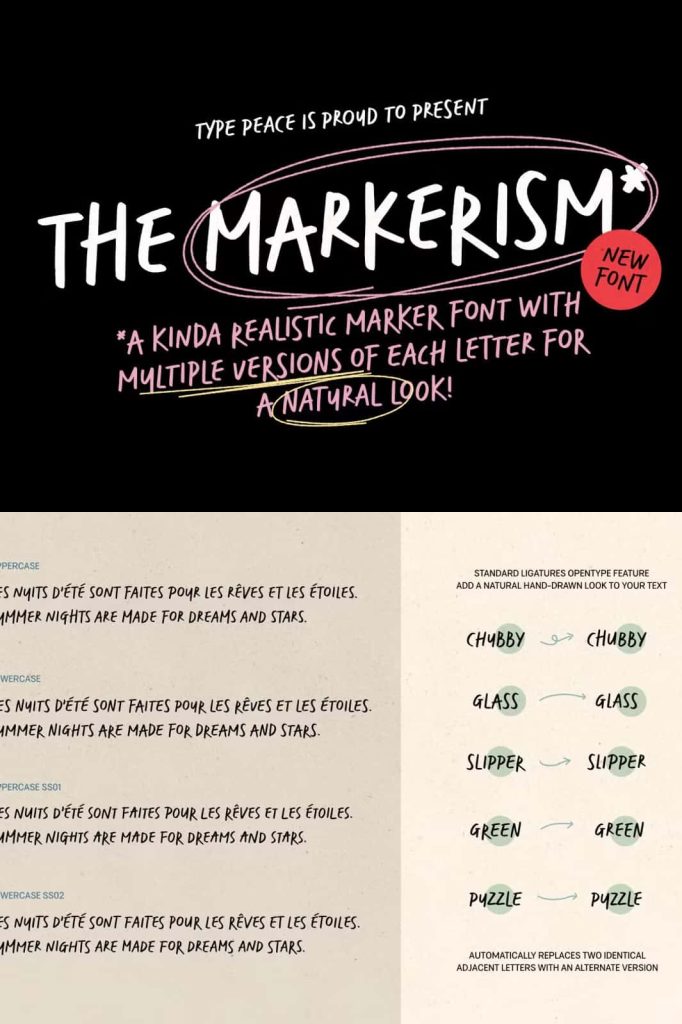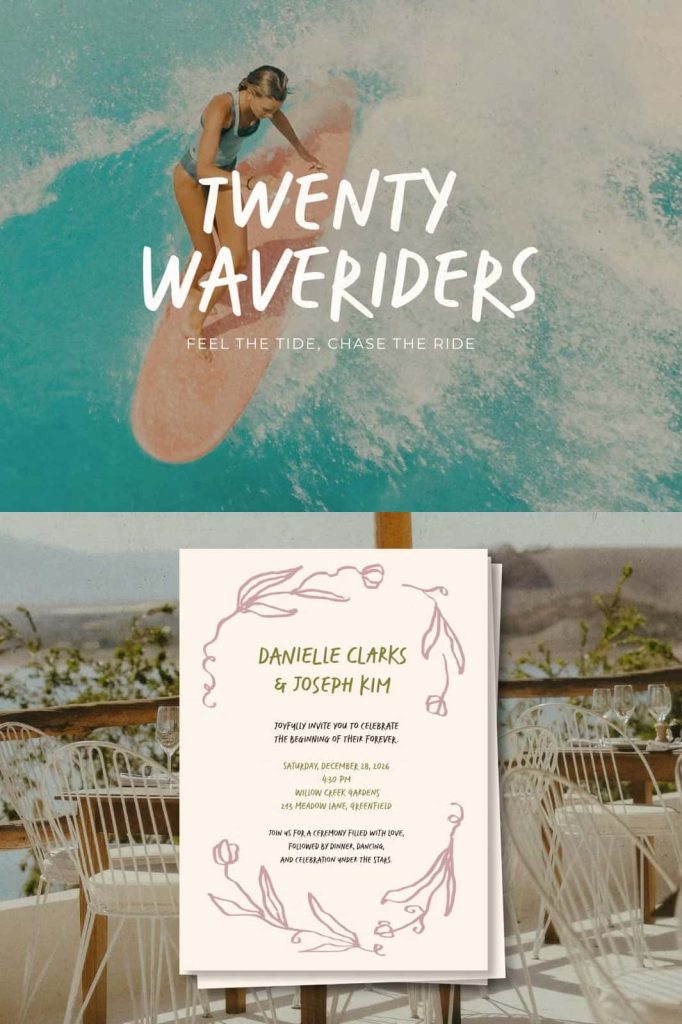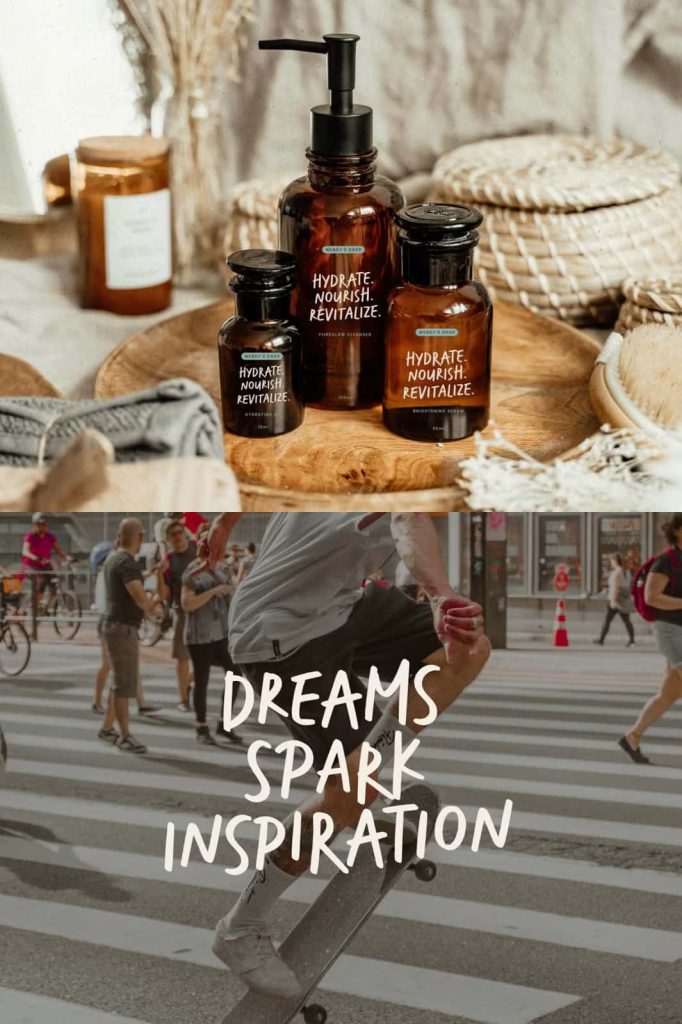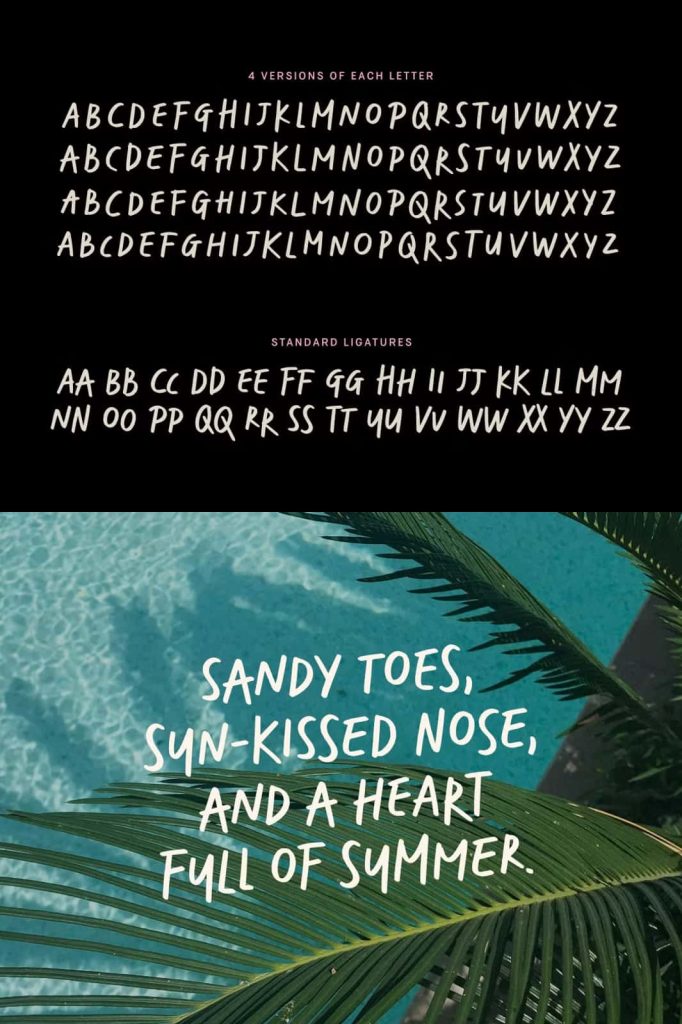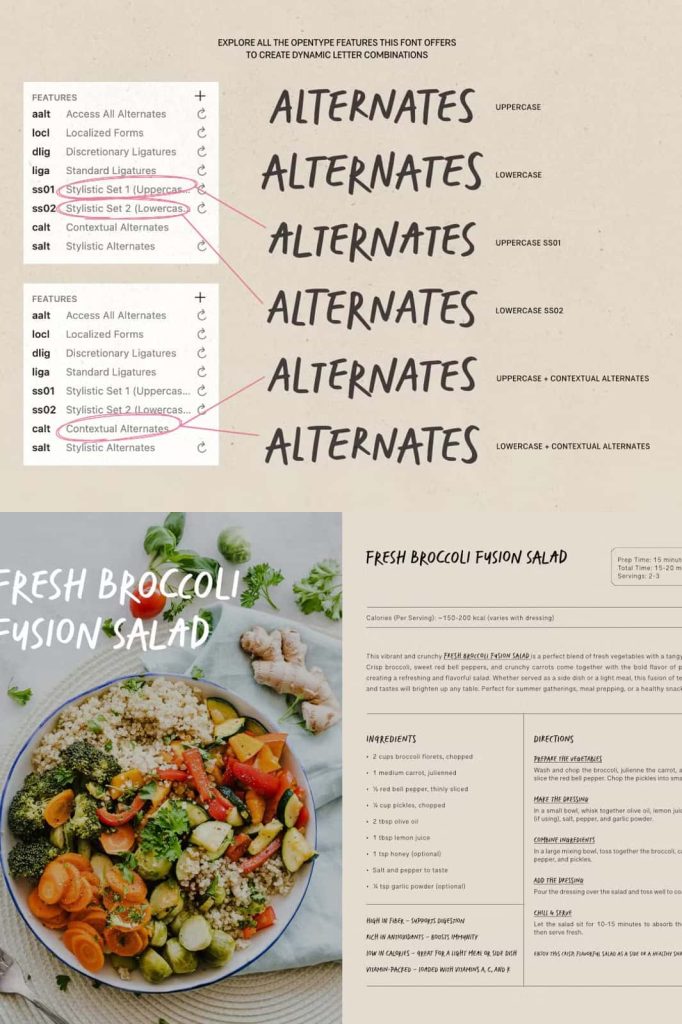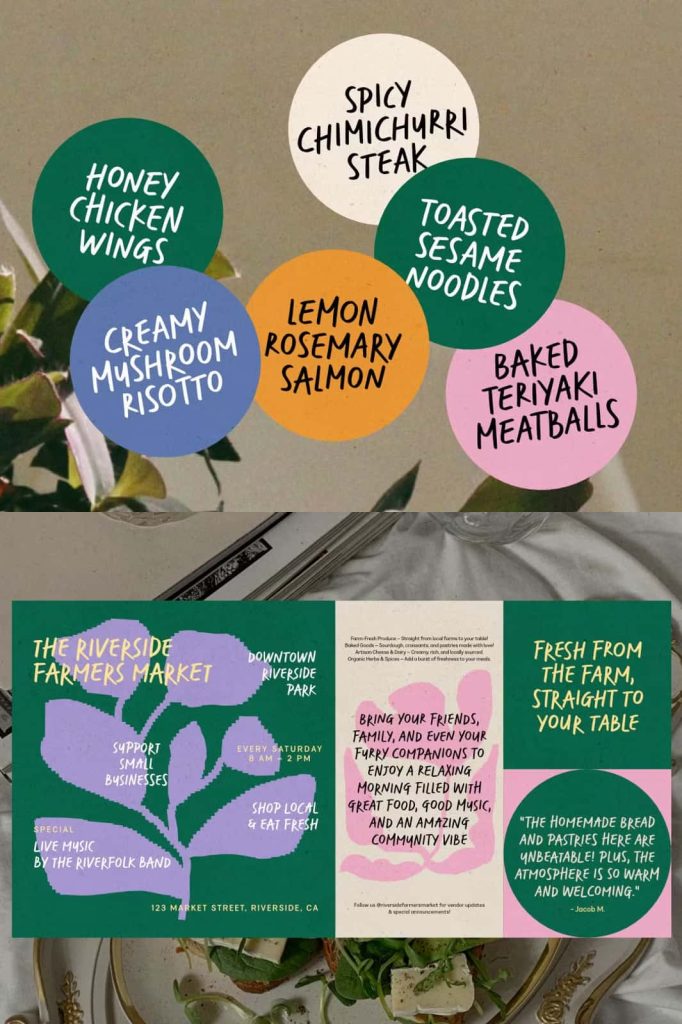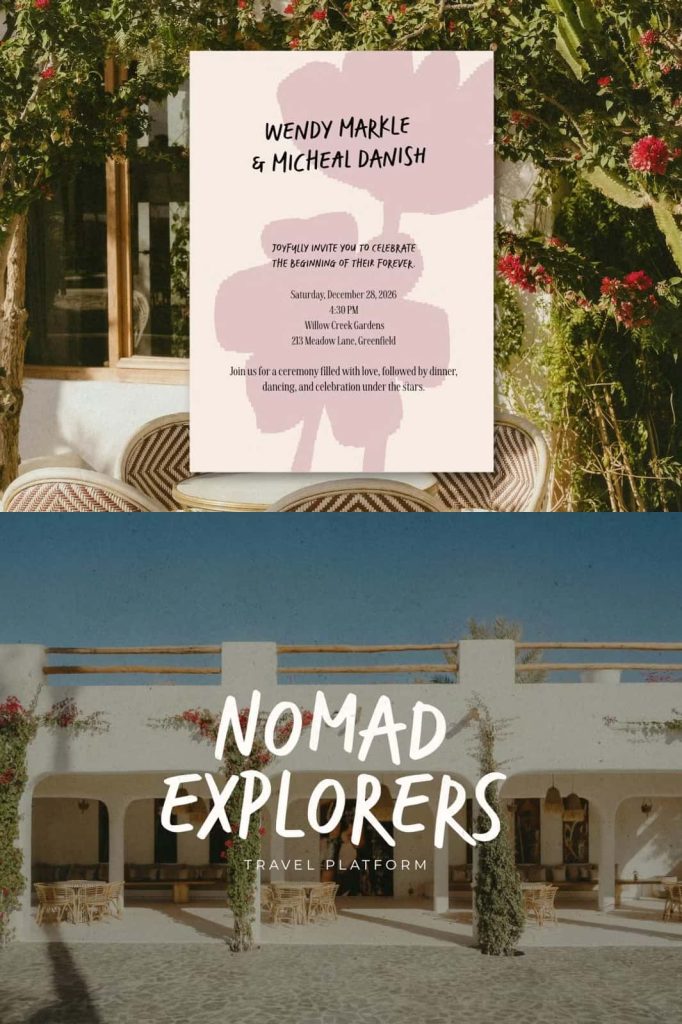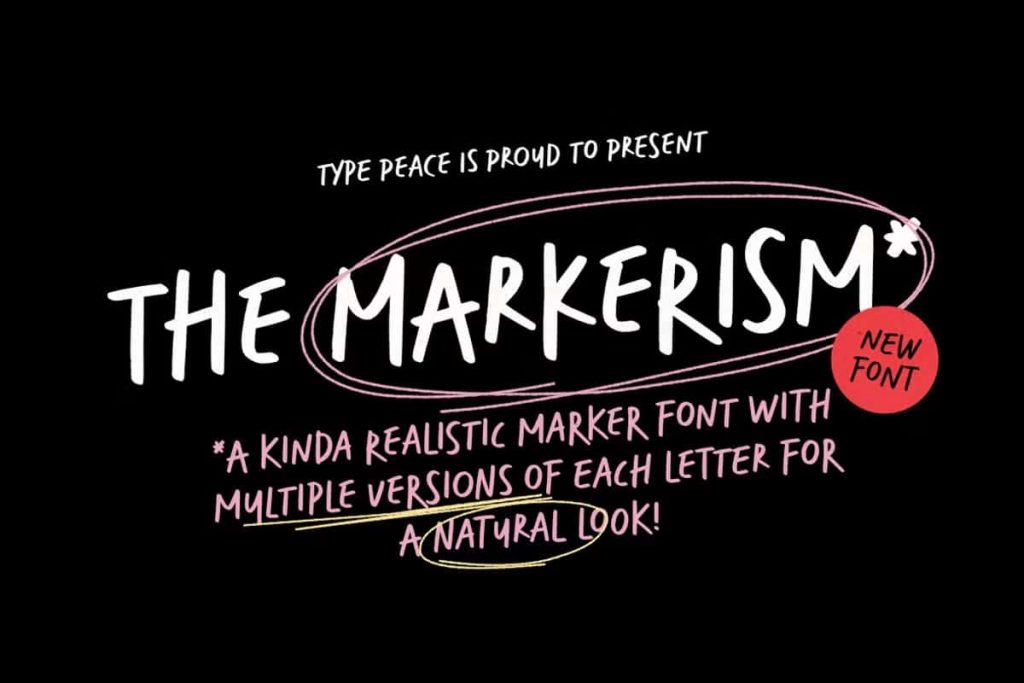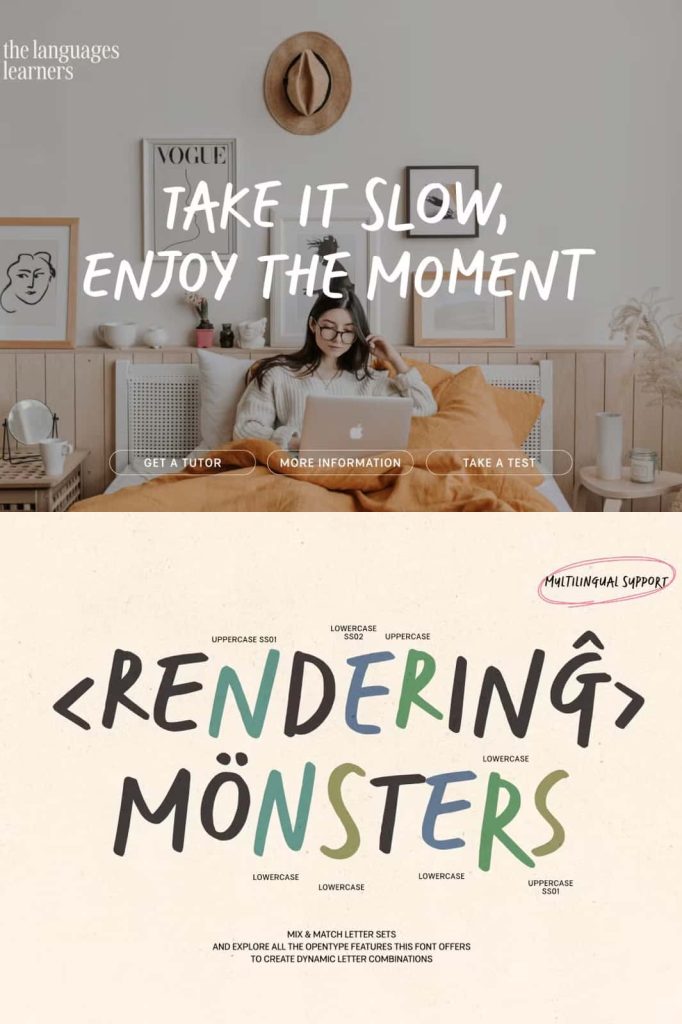
MARKERISM Marker Font – Bold Hand-Drawn Typography for Creative and Expressive Designs
MARKERISM Marker Font is a bold, energetic, and highly expressive typeface created to capture the authentic feel of natural handwritten lettering. Inspired by the freedom and spontaneity of marker pen strokes, this font brings personality, movement, and artistic character to every design. Whether you are creating eye-catching branding, impactful posters, engaging social media graphics, or creative packaging, MARKERISM helps transform ordinary typography into dynamic visual communication.
Designed with versatility in mind, MARKERISM includes four variations of each letter, allowing text to appear more natural and less repetitive. Combined with advanced OpenType features such as ligatures and contextual alternates, the font automatically generates realistic handwritten effects that closely mimic genuine marker lettering. The result is a highly authentic typeface that feels organic, creative, and full of life.
Authentic Hand-Drawn Style with Natural Character
One of the most distinctive features of MARKERISM Marker Font is its ability to recreate the look and feel of hand-drawn typography. Traditional digital fonts often suffer from repetitive letterforms that can make text appear mechanical. MARKERISM solves this challenge by providing multiple variations of every character, allowing each word and sentence to appear naturally handwritten.
This thoughtful design approach creates a realistic flow that enhances the overall visual experience. Every stroke feels spontaneous and energetic, making the font ideal for projects that require authenticity, creativity, and emotional connection.
Four Letter Variations for Dynamic Typography
MARKERISM includes four unique versions of each letter, dramatically increasing design flexibility. As characters repeat throughout a word or sentence, the font intelligently alternates between different variations to create a more organic and handcrafted appearance.
This feature helps eliminate the uniformity often found in standard digital fonts, allowing designers to achieve typography that feels fresh and genuinely hand-rendered. The variation system adds visual interest while preserving readability, making MARKERISM suitable for both short headlines and longer creative text compositions.
Advanced OpenType Features for Professional Results
MARKERISM takes advantage of modern OpenType technology to enhance the quality and realism of every design. The inclusion of ligatures and contextual alternates allows characters to interact naturally with one another, creating smoother connections and more fluid typography.
These intelligent features work automatically in compatible design software, helping designers achieve professional-quality results with minimal effort. The font continuously adapts to the surrounding letterforms, creating text that looks handcrafted rather than digitally generated.
Popular Applications for MARKERISM Marker Font
- Logo Design and Branding
- Creative Posters and Flyers
- Product Packaging
- Social Media Graphics
- YouTube Thumbnails
- Advertising Campaigns
- Merchandise Design
- Book Covers and Editorial Projects
- Greeting Cards and Invitations
- Website Headers and Landing Pages
- Art Prints and Creative Artwork
- Marketing Materials
Create Bold and Memorable Branding
Strong branding requires typography that captures attention and communicates personality. MARKERISM Marker Font helps brands establish a distinctive voice through its expressive and handcrafted style. The font instantly adds character to logos, packaging, promotional materials, and advertising campaigns, making businesses appear more approachable, creative, and memorable.
Creative agencies, lifestyle brands, artists, content creators, and small businesses can use MARKERISM to build visual identities that stand out in crowded markets. Its bold strokes and authentic handwritten appearance create a sense of originality that resonates with modern audiences.
Perfect for Posters and Promotional Designs
MARKERISM excels in large-format typography where visual impact is essential. Its bold marker-inspired design naturally attracts attention, making it an excellent choice for posters, event promotions, marketing campaigns, and advertising materials.
Designers can use the font to create powerful headlines and attention-grabbing messages that remain highly readable while maintaining a creative and artistic feel. The expressive letterforms inject energy into every composition, helping promotional materials communicate with greater effectiveness.
Enhance Social Media Content and Digital Marketing
In today’s digital environment, brands need content that captures attention instantly. MARKERISM Marker Font helps designers create engaging social media graphics, promotional posts, video thumbnails, and online advertisements that stand out from standard typography.
Its hand-drawn aesthetic creates a more personal connection with audiences while maintaining a professional level of quality. Whether used for Instagram graphics, Facebook campaigns, Pinterest content, or digital banners, MARKERISM adds authenticity and visual appeal to every design.
Multilingual Support for Global Creativity
MARKERISM includes multilingual language support, making it a practical solution for designers working with international audiences. This feature allows businesses, marketers, and creative professionals to maintain a consistent visual identity across multiple languages and regions.
The extensive character set ensures that typography remains cohesive and visually attractive regardless of language requirements, helping designers create professional projects for global markets.
Why Choose MARKERISM Marker Font?
MARKERISM Marker Font combines artistic freedom, advanced typography technology, and authentic hand-drawn style into one powerful creative tool. With four variations of every letter, OpenType ligatures, contextual alternates, and multilingual support, the font offers exceptional flexibility while preserving the natural appearance of handwritten marker lettering.
Whether you are designing bold branding materials, creative posters, product packaging, social media content, or artistic projects, MARKERISM delivers the personality and visual impact needed to make your work stand out. Its dynamic character, professional features, and expressive design make it an invaluable addition to any designer’s font collection and an excellent choice for projects that demand originality and creativity.